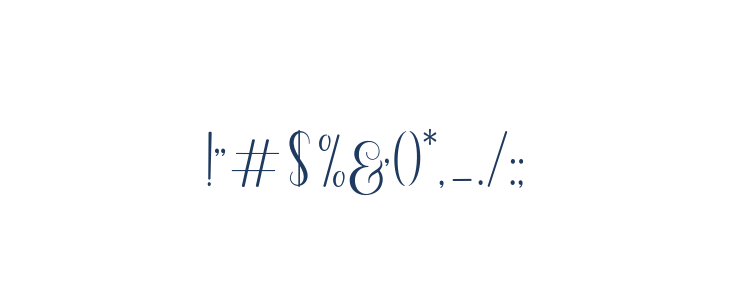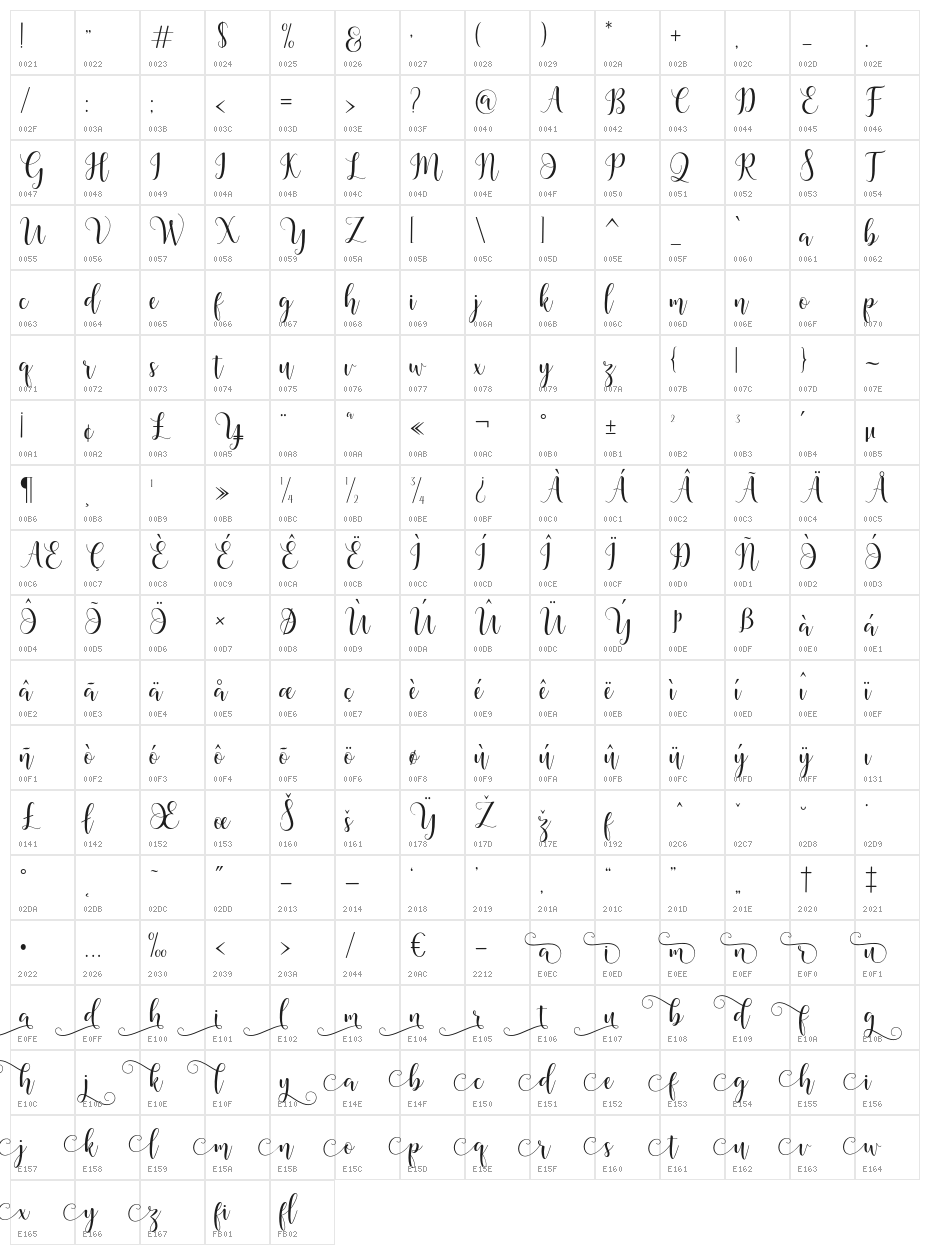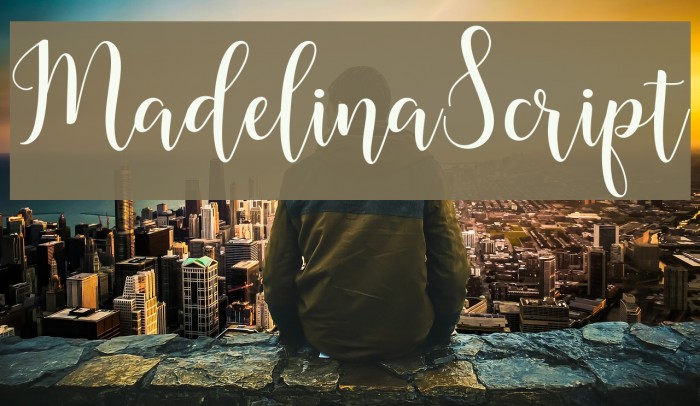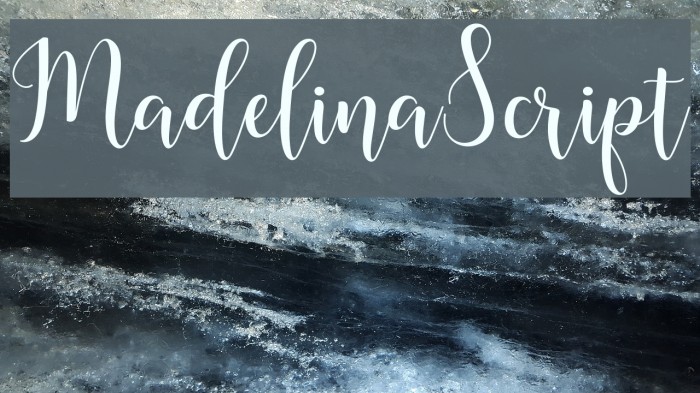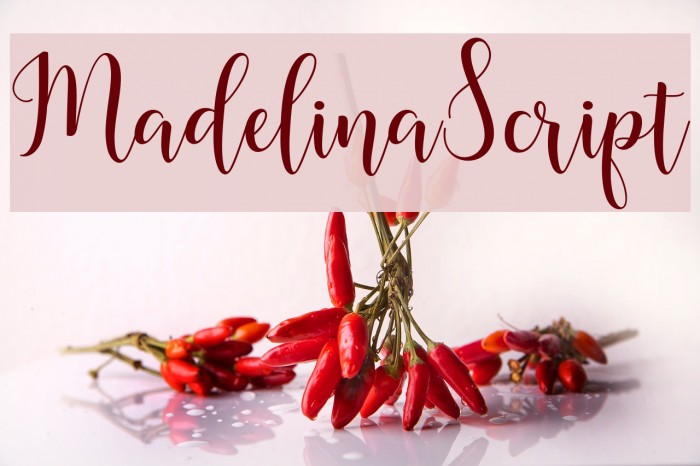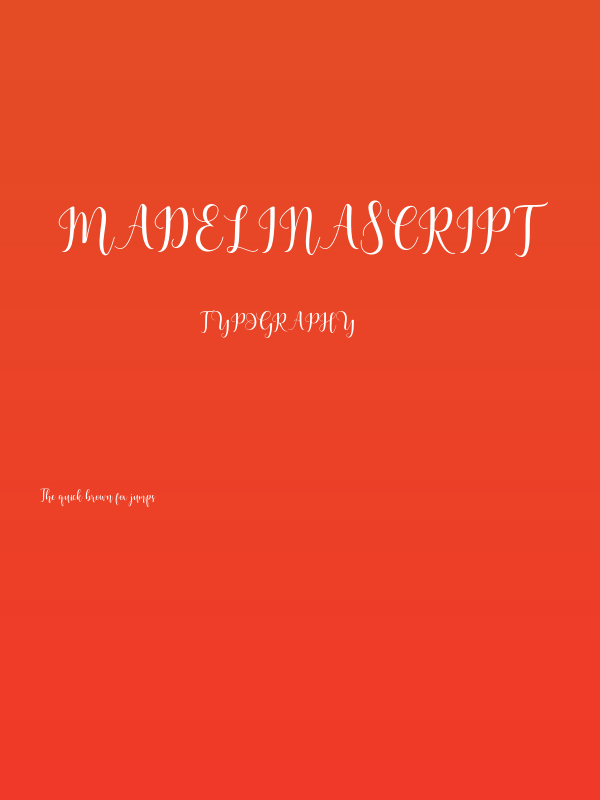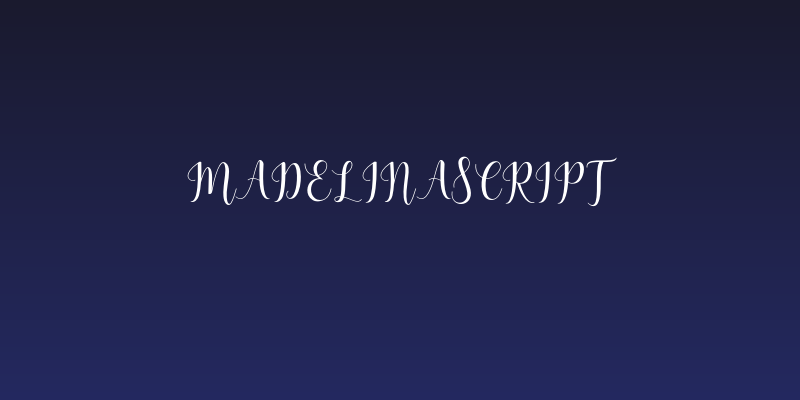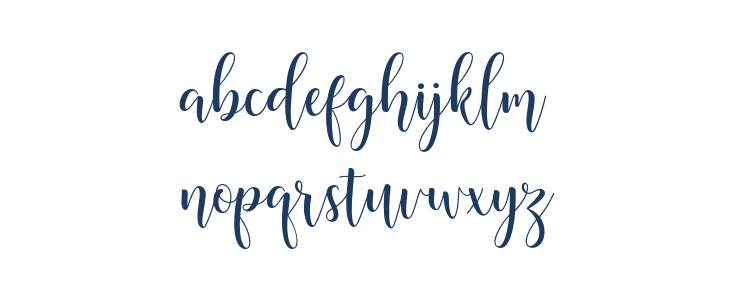
MadelinaScript Font
MadelinaScript Description
This elegant script font features graceful, flowing lines and a sophisticated style that evokes a sense of luxury and refinement. The uppercase letters are characterized by their tall, slender forms with sweeping curves and delicate flourishes, while the lowercase letters maintain a consistent fluidity with smooth connections and rounded edges. The font's overall appearance is both romantic and stylish, making it ideal for projects that require a touch of elegance. The numerals and special characters are designed to complement the letters, maintaining the same elegant and fluid style. This font is perfect for creating beautiful invitations, branding materials, and any design that seeks to convey a sense of elegance and sophistication.
| Overall Style | Elegant, Romantic |
| Use Case | Invitations, Branding, Stationery |
| Proposed Projects | Ideal for wedding invitations, luxury branding, elegant stationery, and sophisticated logo designs. |